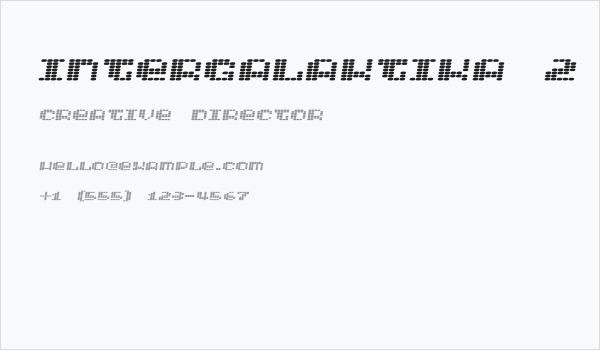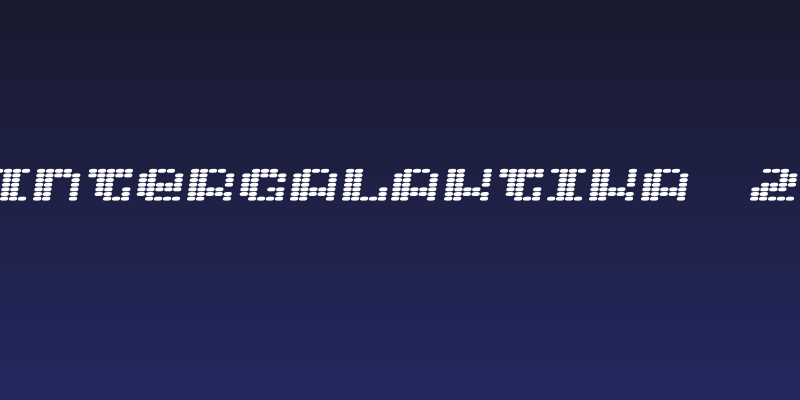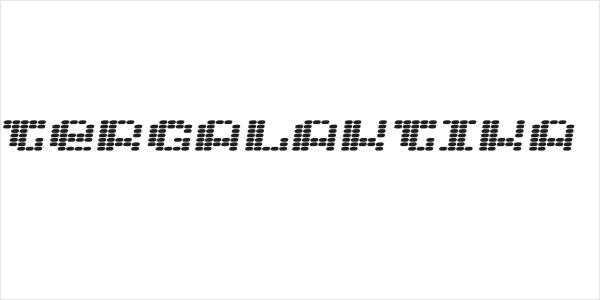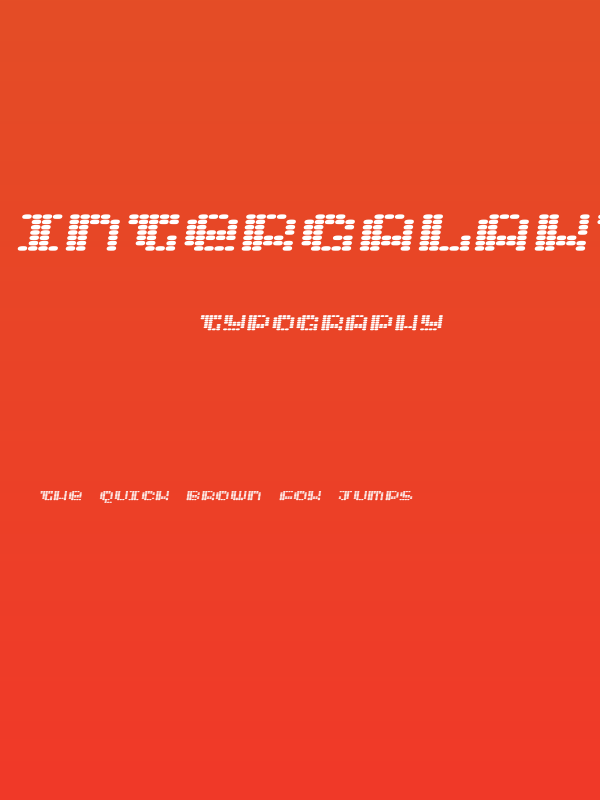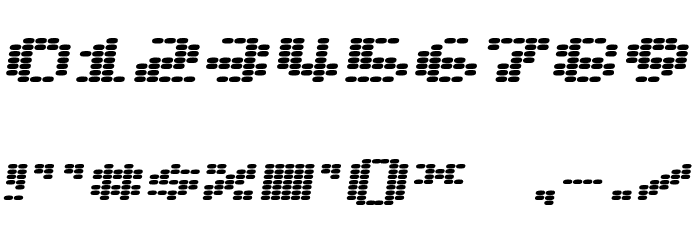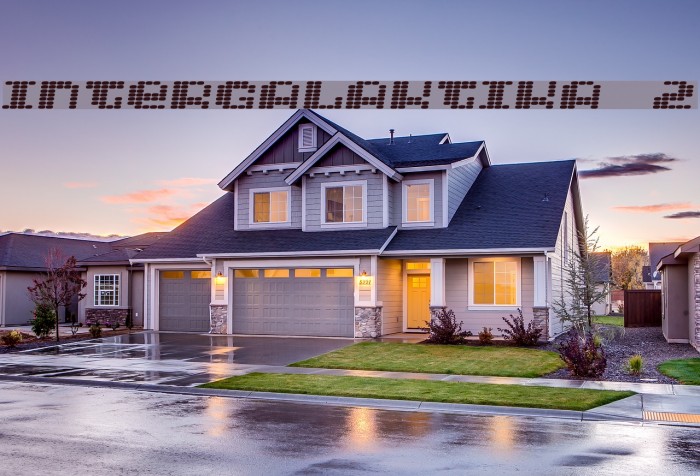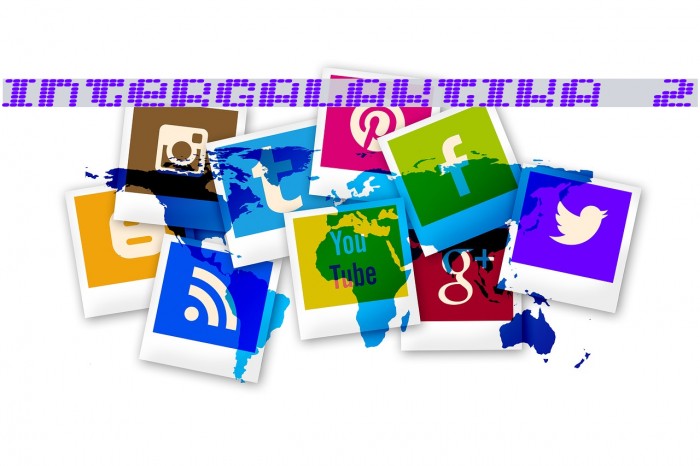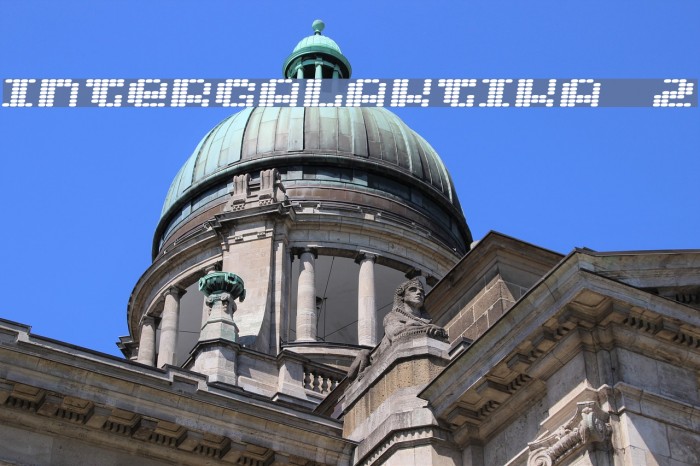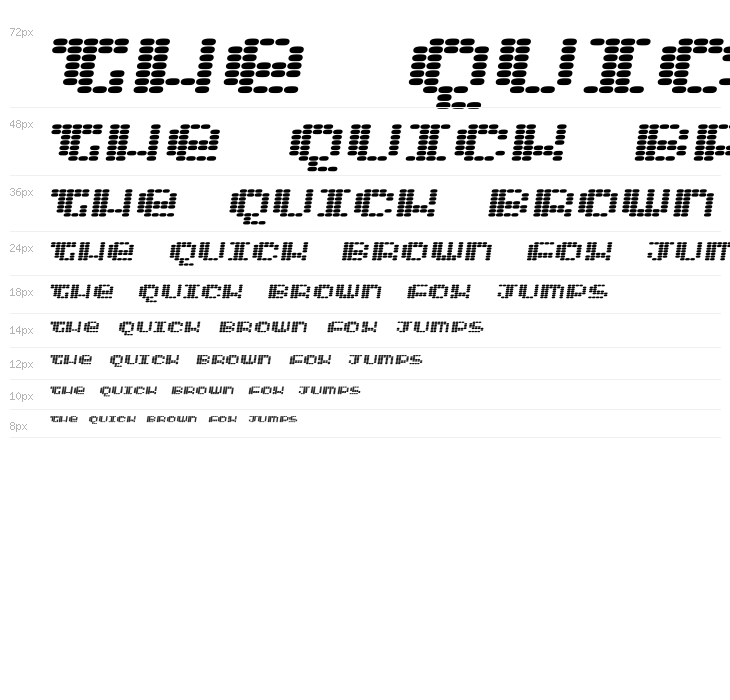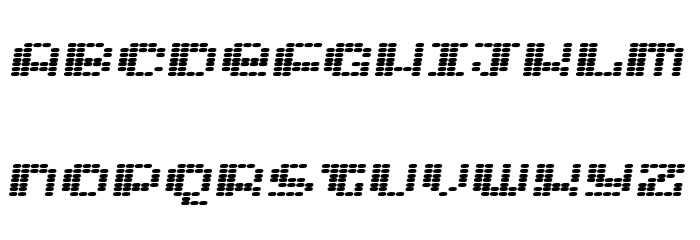
Intergalaktika 2 Font
Intergalaktika 2 Description
This font features a futuristic and digital aesthetic, characterized by its unique dot matrix style. Each character is composed of a series of small, evenly spaced dots that form the outlines of letters and numbers, giving it a pixelated appearance. The design is consistent across both uppercase and lowercase letters, as well as numbers and special characters, maintaining a cohesive look. This font evokes a sense of technology and modernity, making it ideal for projects that require a digital or sci-fi theme. The uniformity of the dot spacing ensures readability while adding a distinctive visual texture.
| Proposed Projects | Ideal for digital art, sci-fi themed designs, tech branding, and futuristic interfaces. |